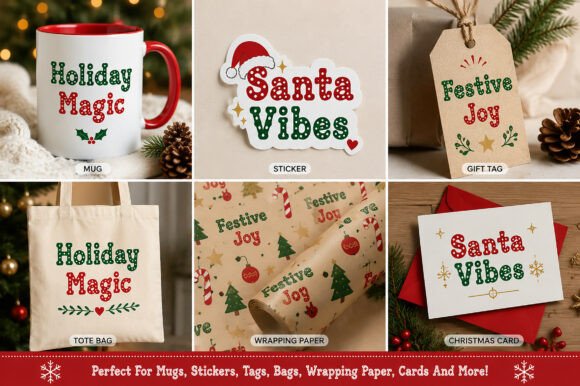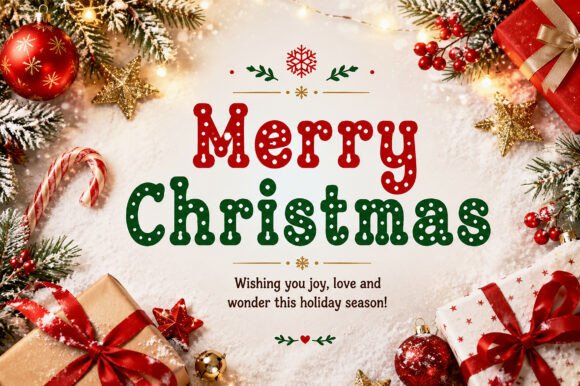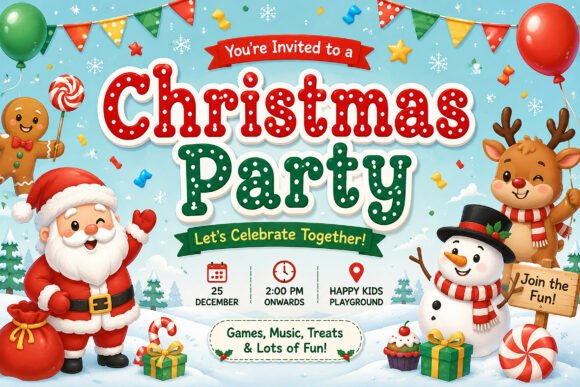
Introduction to Christ Celebration Font
Have you ever found yourself rummaging through your design resources, searching for the perfect font to capture the essence of the holiday season? As the snowflakes start to fall and the festive lights begin to twinkle, you want your designs to shine with the same warmth and joy that Christmas brings. That’s where the Christ Celebration Font comes in – a delightful and high-quality design resource that’s sure to add a merry touch to any creative project.
Whether you’re a seasoned designer or a hobbyist, this font is a valuable addition to your design arsenal. With its playful rounded letterforms and decorative snow-like details, the Christ Celebration Font is perfect for a wide range of applications, from free download Christmas party invitations to transparent background social media graphics.
So why settle for a generic font when you can add a dash of holiday magic to your designs with the Christ Celebration Font?
Key Features of Christ Celebration Font
- High-quality font with a unique and festive design, perfect for celebrating the spirit of Christ.
- Unique characteristics include intricate details and ornate designs, making it a standout choice for special occasions and events.
Honest Review: Christ Celebration Font
- High-quality design that stands out from the crowd
- Great for creating festive and celebratory designs
However, as I continued to use the font, I encountered a few limitations.
- May not be suitable for all design styles or themes
- Limited character set, which may cause issues for longer text
- Not as versatile as other fonts in my collection
Overall, I would give the Christ Celebration Font a solid 3.5 out of 5 stars. It’s a great addition to any designer’s resource library, but it may not be the best choice for every project. With some careful consideration, it can be a valuable design resource for your next creative project.
Some tips for getting the most out of the Christ Celebration Font include using it for titles, headings, and quotes in your design project. You can also use it to create custom graphics, social media posts, and print materials. Common use cases include wedding invitations, church programs, and inspirational quotes.